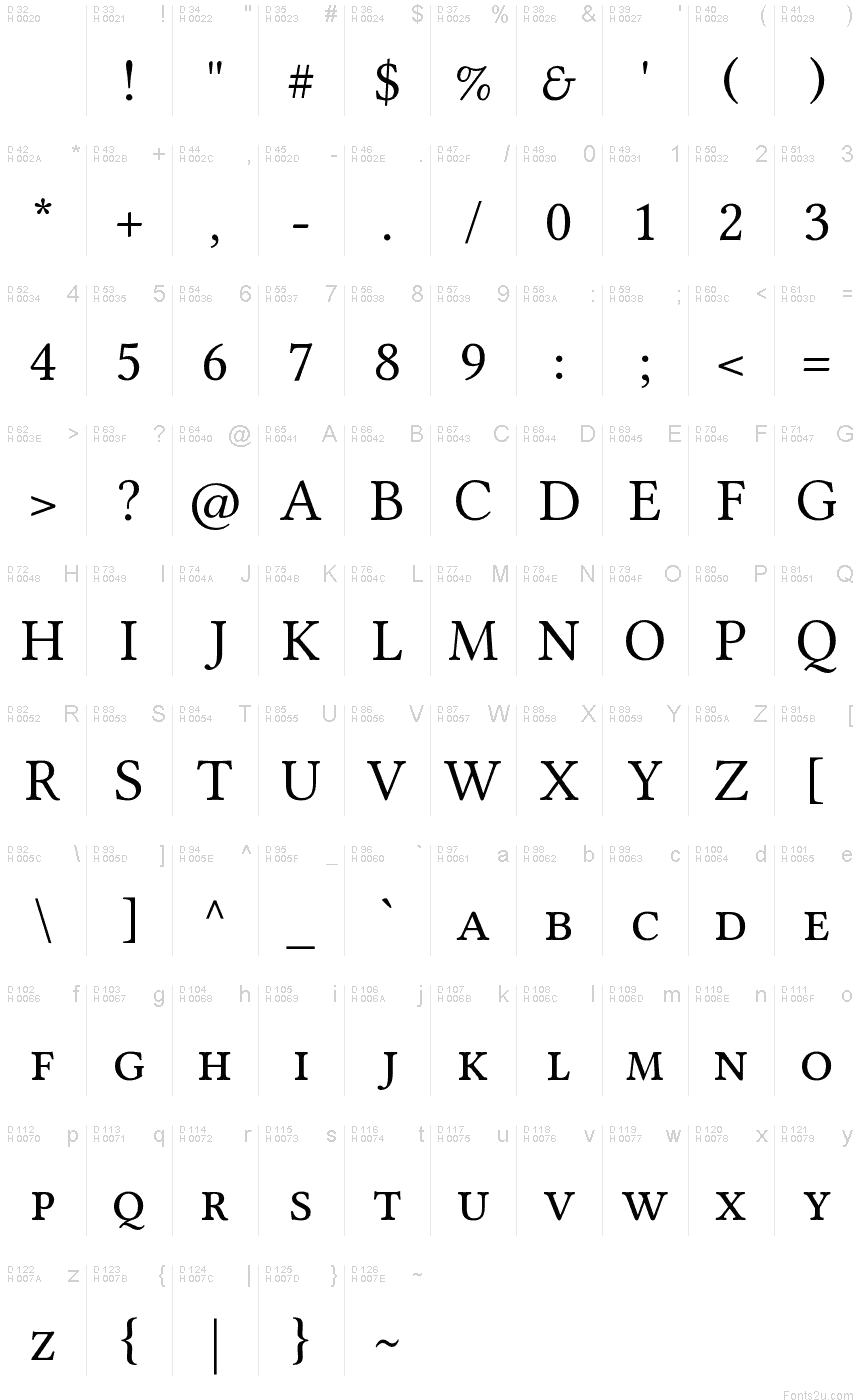
Linux Libertine Capitals
Linux Libertine Capitals by Philipp H. Poll is a free classical serif caps font with stately Roman proportions. Its changing stroke widths and broad, bracketed serifs give the letters a crisp, bookish silhouette. The capitals are wide, with firm horizontals and shaped curves.
A publisher or heritage brand could use it for a masthead, packaging, or event materials. Its formal construction suggests scholarship and tradition without severity. It also suits museum signage and historical exhibition graphics, especially when typography needs to echo printed books.